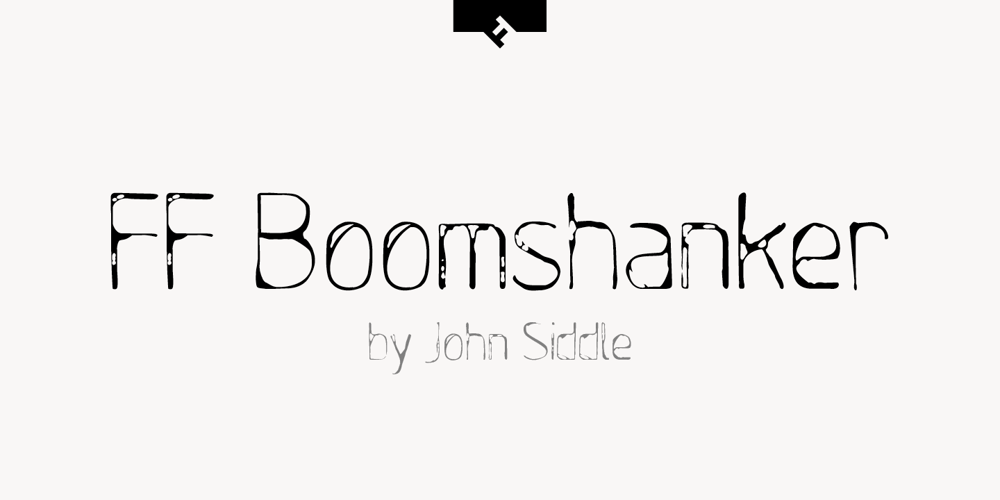
FF Boomshanker Font Family was designed by John Siddle and published by FontFont. FF Boomshanker contains 2 styles and family package options. British type designer John Siddle created this display FontFont in 1995. The family contains 2 weights and is ideally suited for film and tv, music and nightlife as well as poster and billboards. FF Boomshanker provides advanced typographical support with features such as ligatures. It comes with proportional lining figures.